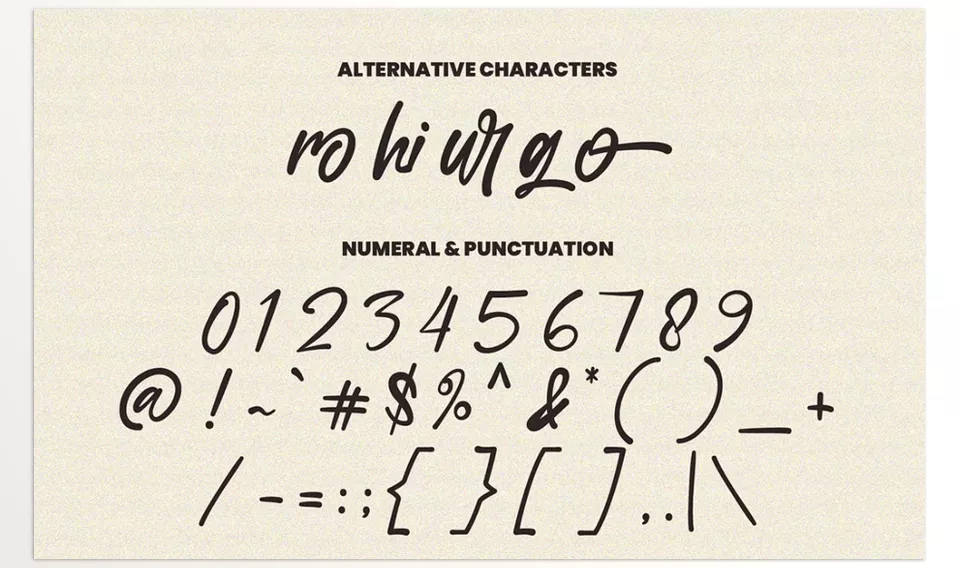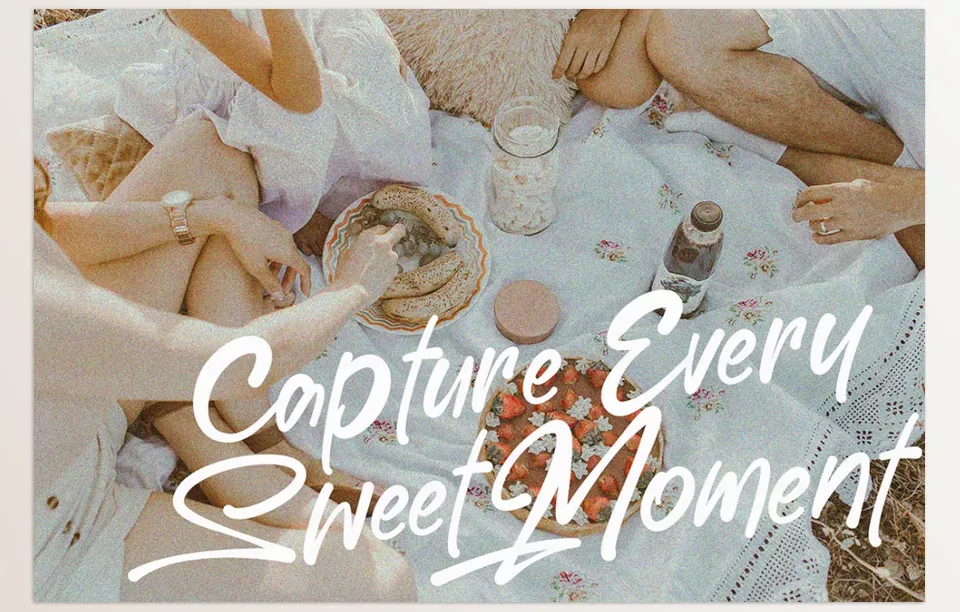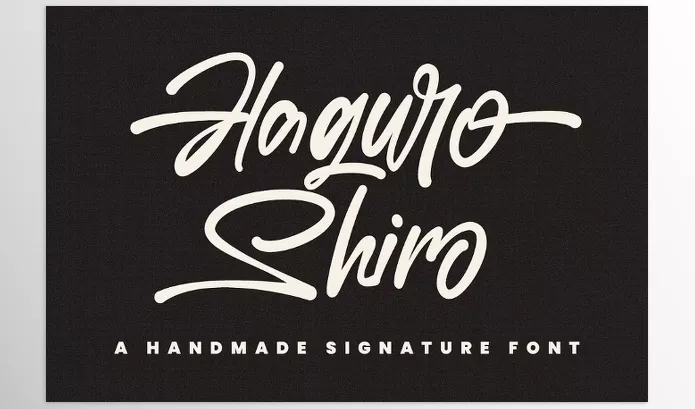
Haguro Shiro Signature Handmade Font adds a personal handmade style to your creative needs, be it for logos, branding, or stationery design. This font can easily stand out with its unique character alternates and ligatures that enhance the design.
• Features ligatures and alternate characters for added design versatility.
Image 1: Give your designs a personalized, handcrafted touch with this elegant script font, perfect for logos, stationery, and more.
Haguro Shiro Signature Handmade Font - Give your designs a personalized, handcrafted touch with this elegant script font, perfect for logos, stationery, and more.
Image 2: Elevate your creative projects with a font that combines authentic charm and versatility, offering a unique signature style.
Haguro Shiro Signature Handmade Font - Elevate your creative projects with a font that combines authentic charm and versatility, offering a unique signature style.